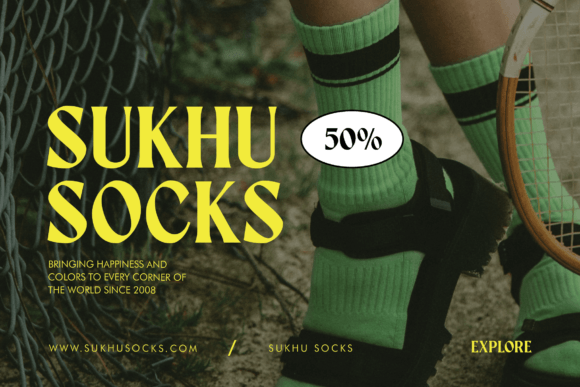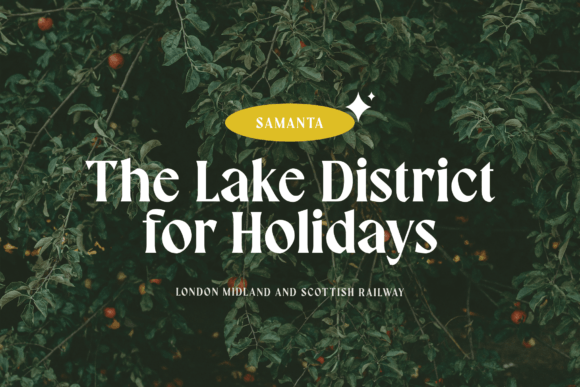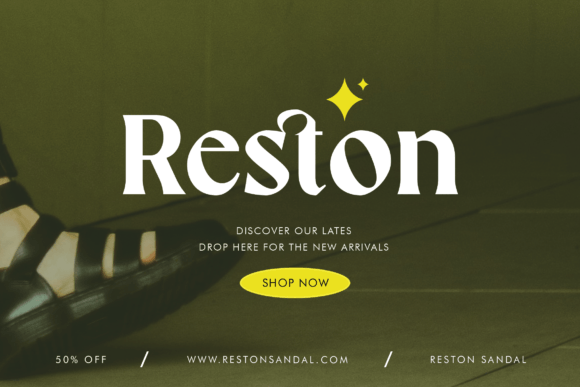
Introduction to Salty Ages Font
Salty Ages is an elegant and retro serif font perfect for your upcoming projects.
Add it to your luxury logos and branding, classy editorial design, woman magazines, cosmetic brands, fashion promos, art gallery branding, museums, boutique branding, stationery design, blog designs, modern advertising design, card invitations, art quotes, home decor, book/cover titles, special events, and many more .
Key Features of Salty Ages Font
Why Choose Salty Ages Font?
Salty Ages Font offers exceptional quality and versatility, making it a valuable addition to your design toolkit. Whether you’re creating for personal projects or commercial use, Salty Ages Font delivers professional results.